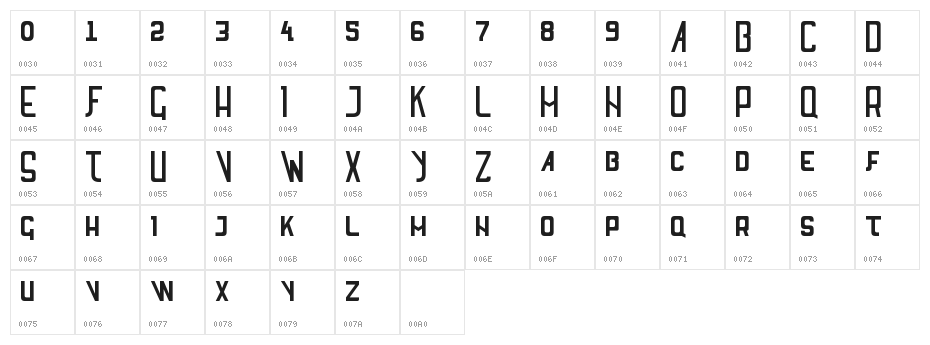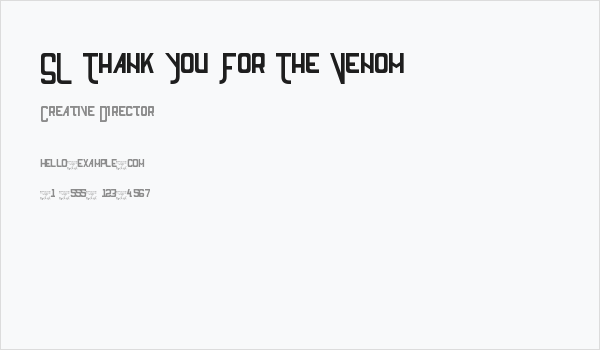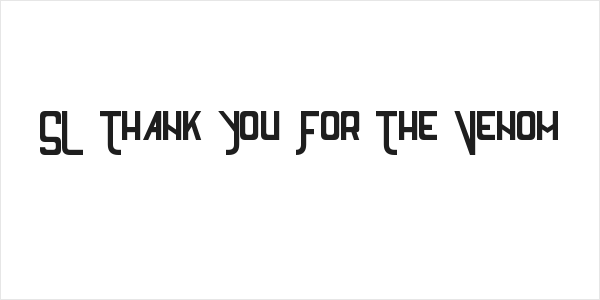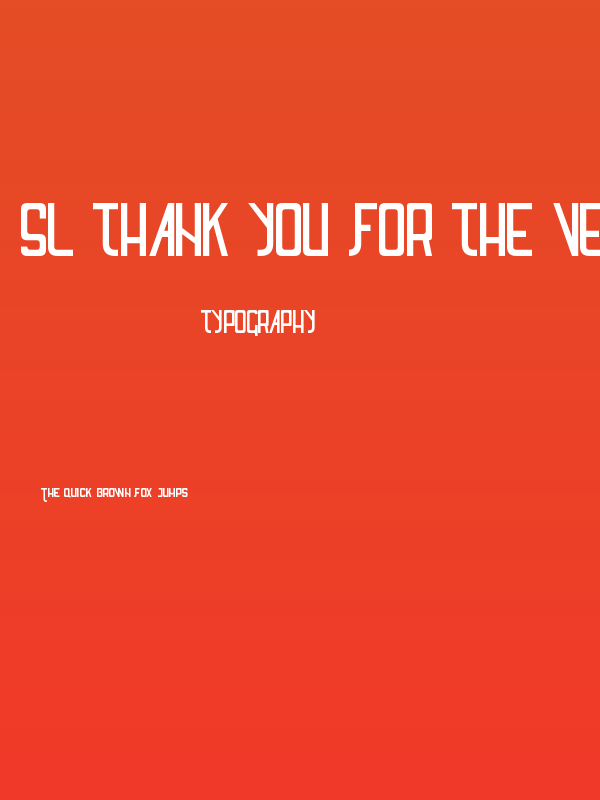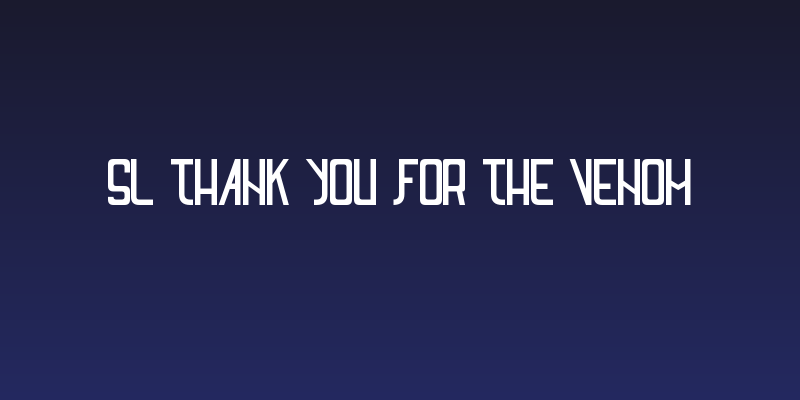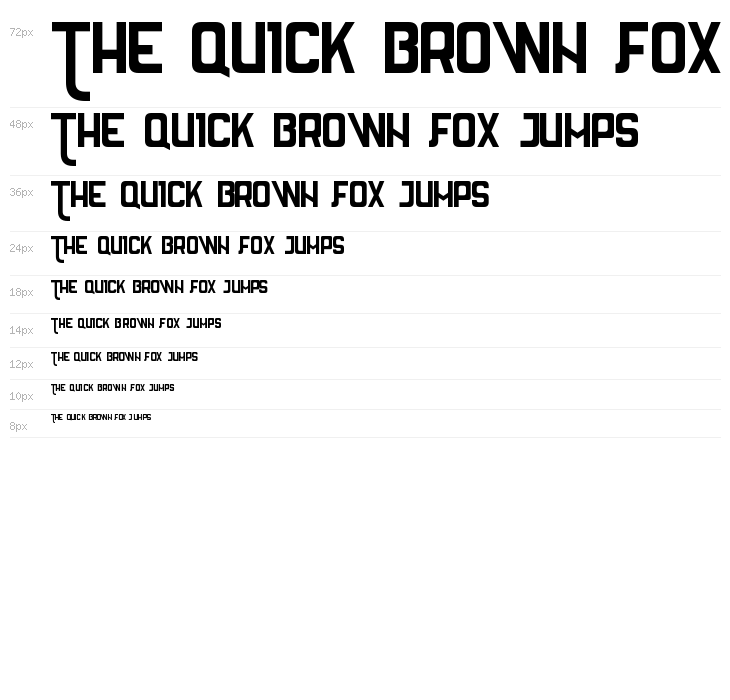
SL Thank You For The Venom Font
SL Thank You For The Venom Description
This font features a bold and angular design with a strong geometric influence. The uppercase letters are tall and narrow, with sharp edges and a modern aesthetic. The lowercase letters maintain the same angular style, providing a cohesive look across all characters. The numbers are equally bold, ensuring readability and consistency. The font's unique style makes it stand out, with a futuristic and edgy vibe that is perfect for attention-grabbing designs. Its clean lines and distinct shapes make it suitable for a variety of creative projects.
| Proposed Projects | Ideal for posters, album covers, branding, and any project needing a modern, edgy look. |